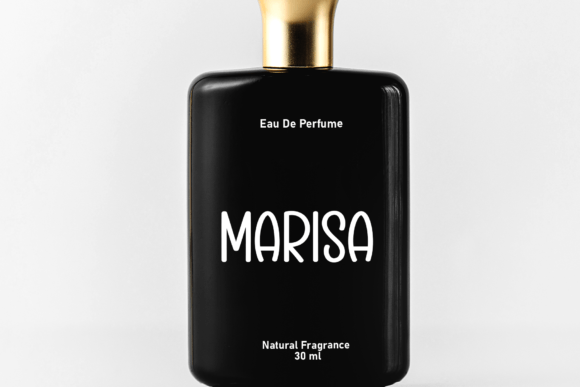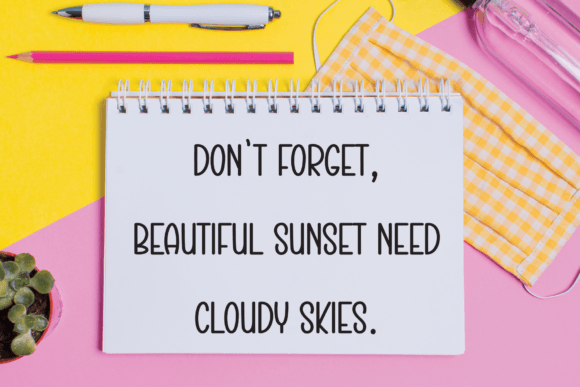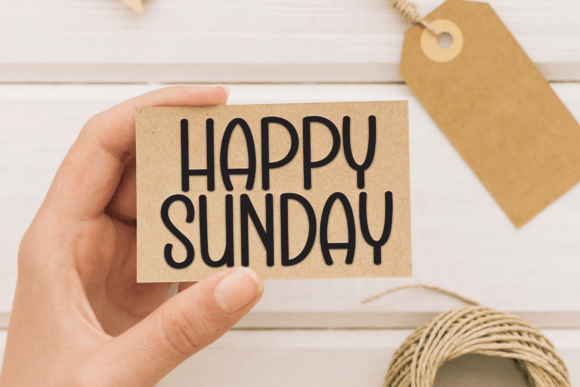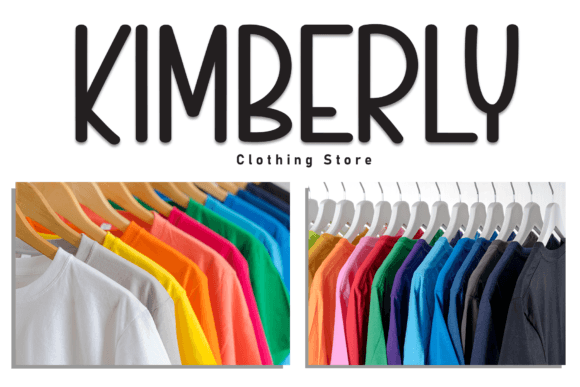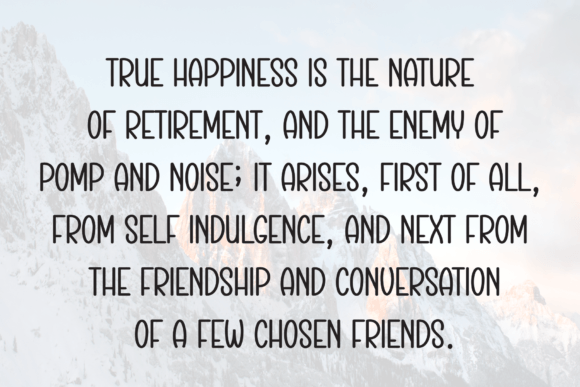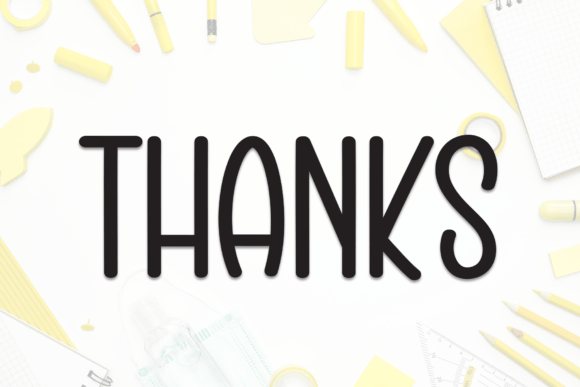
Discover the Charm of Back School Font
Have you ever been in the midst of a creative project, pouring your heart and soul into it, only to find that the perfect font is missing? That’s a frustrating feeling, isn’t it? Well, we’re here to tell you that you might just have found your new best friend in the world of typography – Back School Font.
Back School Font is a sweet and friendly handwritten font that’s designed to add a personal touch to your designs. With its natural and unique style, the possibilities are endless, and the only limit is your imagination! This font is perfect for designers who want to add a human touch to their work, and its versatility makes it suitable for a wide range of projects.
Back School Font Key Features
- Unique Characteristics: Back School Font features a unique, hand-drawn design with a mix of modern and classic elements, making it perfect for educational and informative content.
Back School Font Review
Back School Font is a new addition to the world of fonts, and I’m here to give you the lowdown. Overall, I’d say it’s a decent font, but it has some quirks that might make it less appealing to some designers.
- Clean and simple design: Back School Font has a straightforward, no-frills approach that makes it easy to read.
- Perfect for body text: This font is ideal for large blocks of text, like articles or books, where clarity is key.
- Good legibility: Despite its simplicity, Back School Font is easy to read, even at smaller font sizes.
- Lack of personality: Back School Font is a bit too generic, lacking the unique character that sets some fonts apart.
- No bold or italic options: If you need to emphasize text or create headings, you’ll have to rely on other fonts.
- Not ideal for headlines: While it works well for body text, Back School Font can look a bit bland for headings or titles.
Overall, Back School Font is a solid choice for designers who prioritize readability and simplicity. However, if you’re looking for a font with more flair or personality, you might want to consider other options.
Getting the Most Out of Back School Font
To get the most out of Back School Font, use it for titles and headings to add a playful and educational touch to your designs.
Pair it with simple backgrounds and bold graphics to create a fun and engaging visual identity.
Use it for educational materials, children’s products, and anything that needs a friendly and approachable vibe.
Back School Font is perfect for:
Children’s books and educational materials
Children’s clothing and product labels
Website headers and titles
Marketing materials and social media graphics
Alternatives to Back School Font for Designers
Playfair Display is a luxurious, high-end serif font that is perfect for use in titles, headings, and other prominent text elements. It is ideal for creating a sense of sophistication and elegance in designs. Compared to Back School Font, Playfair Display has a more refined and classic look, while Back School Font has a more playful and informal feel.
Great Vibes is a modern, cursive script font that is great for use in titles, headings, and other text elements where a touch of personality is needed. It is ideal for creating a sense of warmth and approachability in designs. Compared to Back School Font, Great Vibes has a more fluid and expressive look, while Back School Font has a more rigid and structured feel.
Anton
Anton is a modern, sans-serif font that is perfect for use in body text and other text elements where a clean and simple look is needed. It is ideal for creating a sense of clarity and readability in designs. Compared to Back School Font, Anton has a more minimalist and neutral look, while Back School Font has a more playful and attention-grabbing feel.